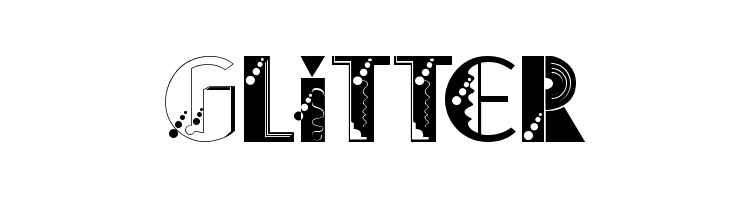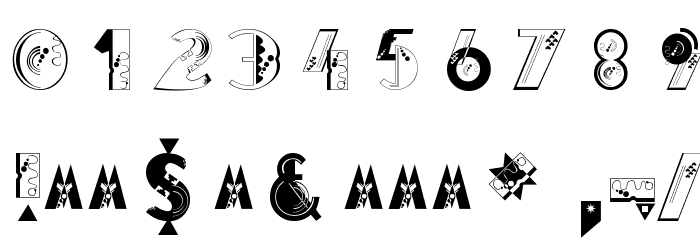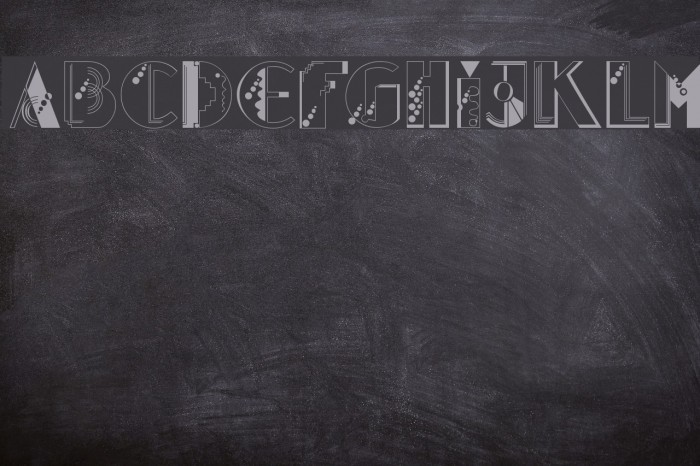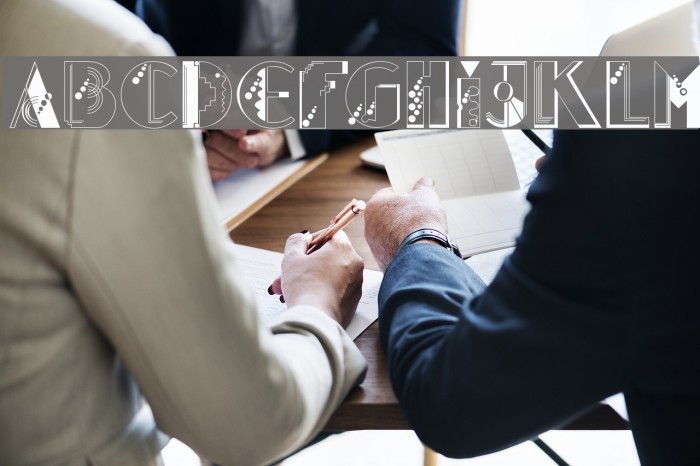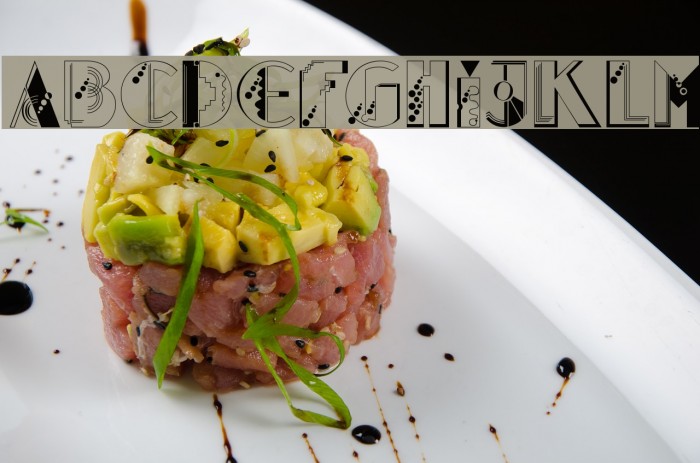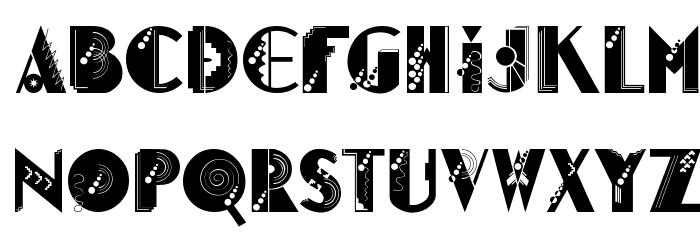
Glitter Font
Glitter Description
This font is a bold and decorative typeface that features a unique combination of geometric shapes and patterns within each character. The letters are filled with intricate designs, including dots, stripes, and zigzags, creating a visually striking appearance. The uppercase and lowercase letters maintain a consistent style, with the same level of detail and creativity. Numbers and special characters are equally adorned with these artistic elements, making the font suitable for eye-catching displays. The overall design is playful and modern, with a touch of retro flair, making it ideal for projects that require a bold and artistic statement.
A bold, decorative font with geometric patterns and artistic flair.
- Proposed Projects: Ideal for posters, album covers, branding, and any project needing a bold, artistic touch.
- Overall Style: Modern, Retro